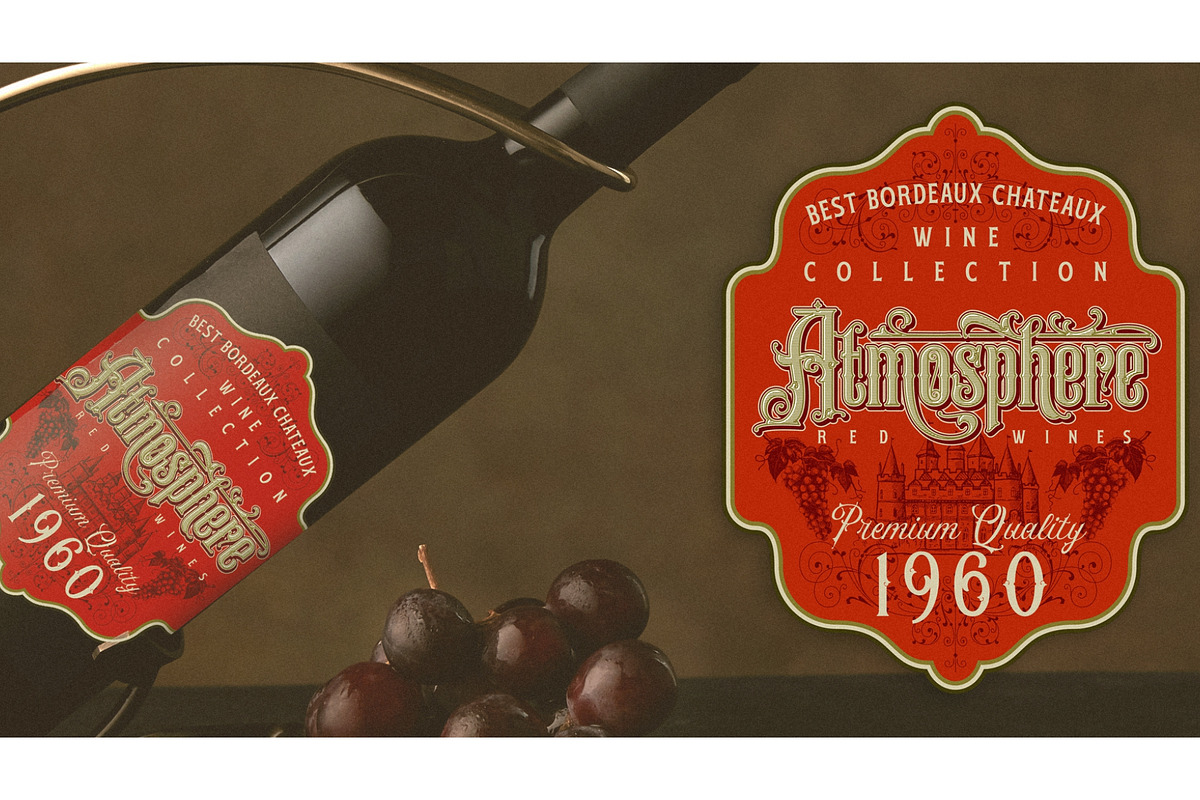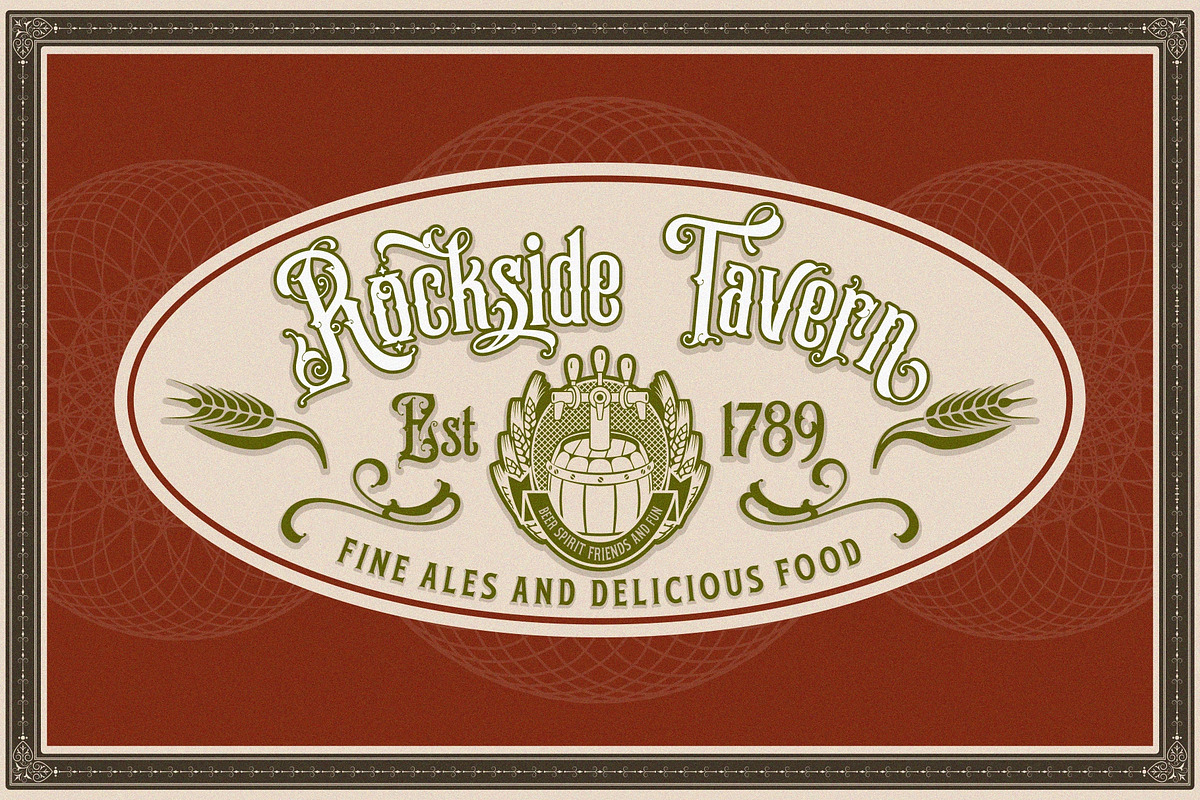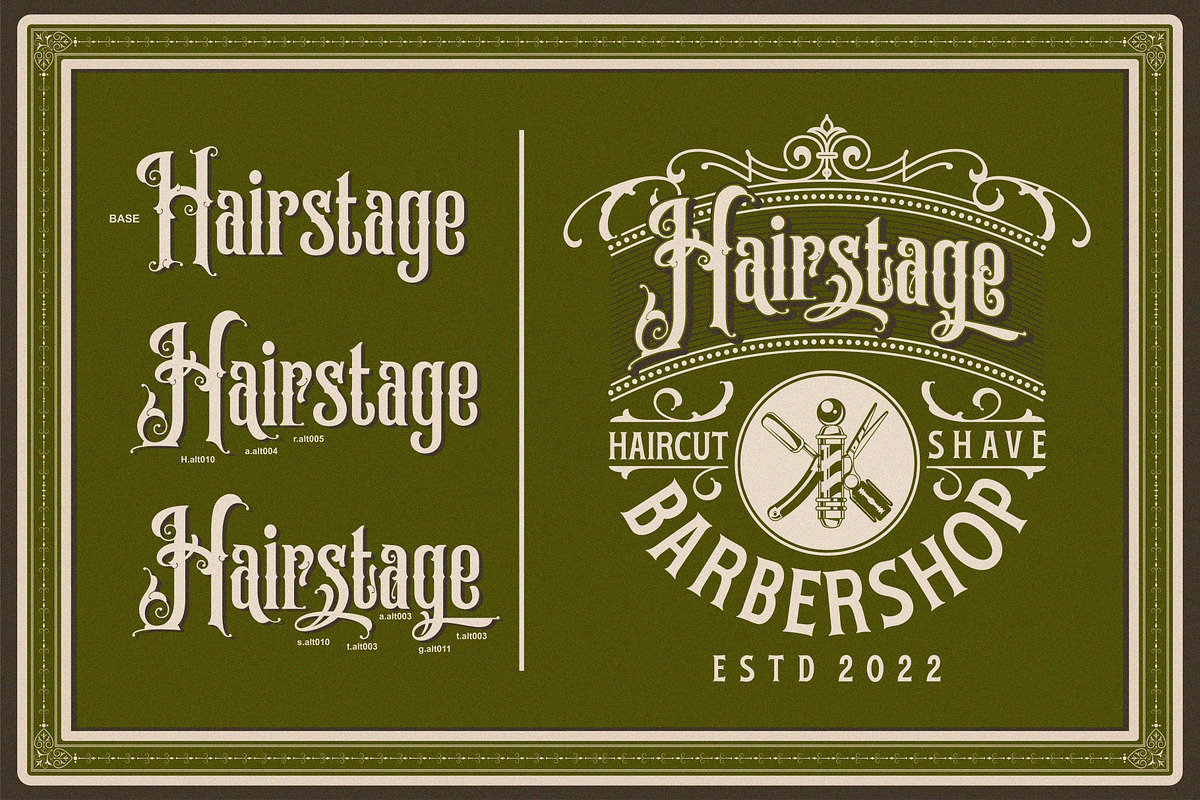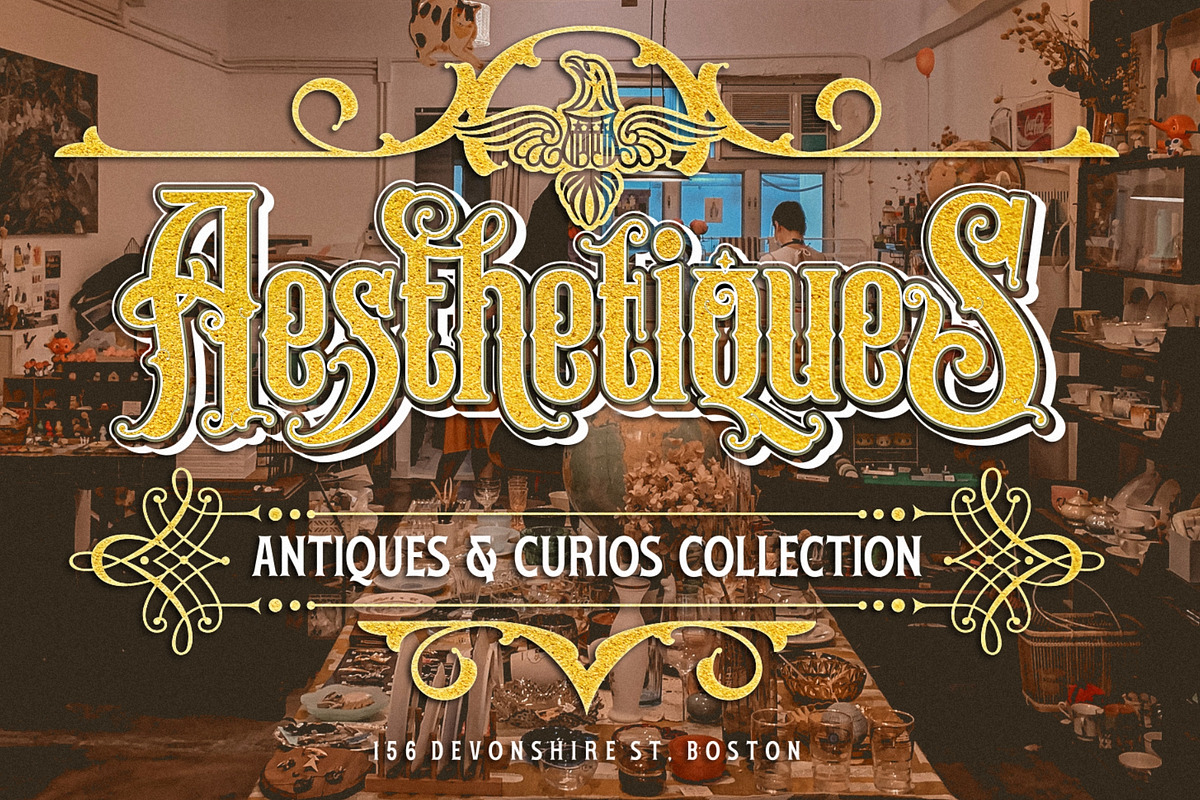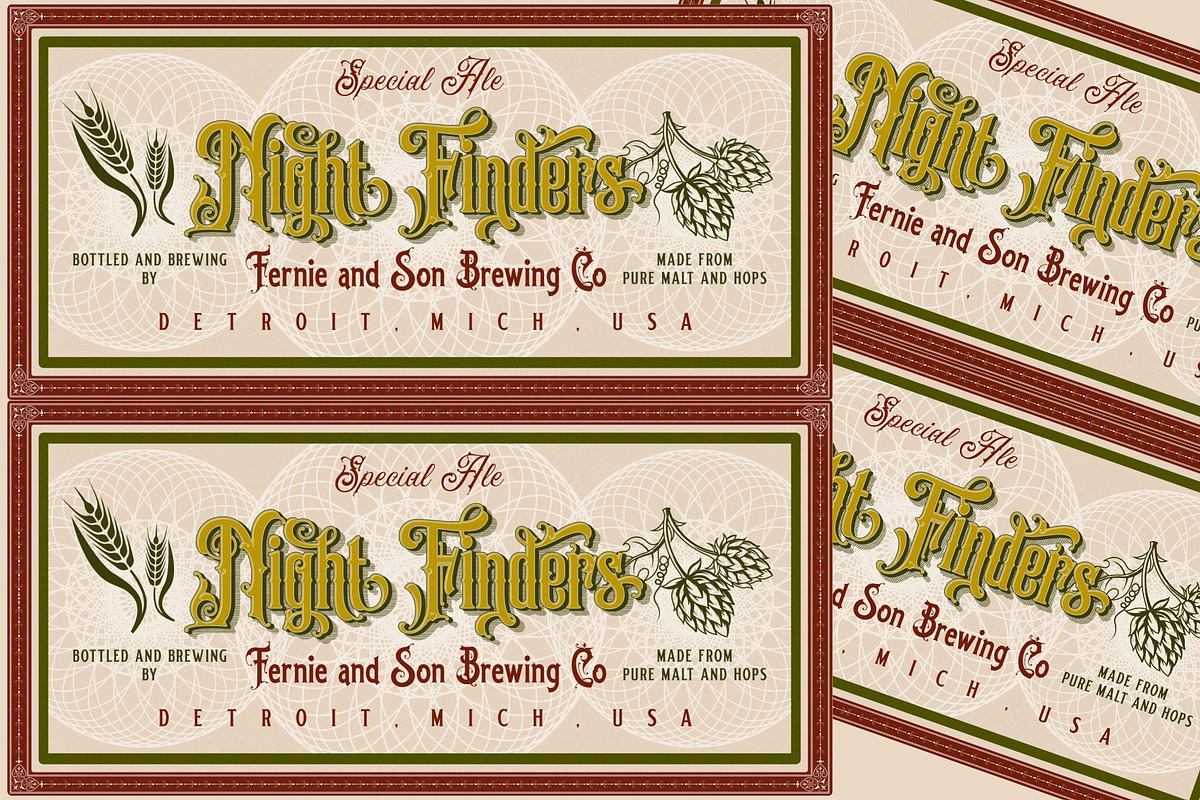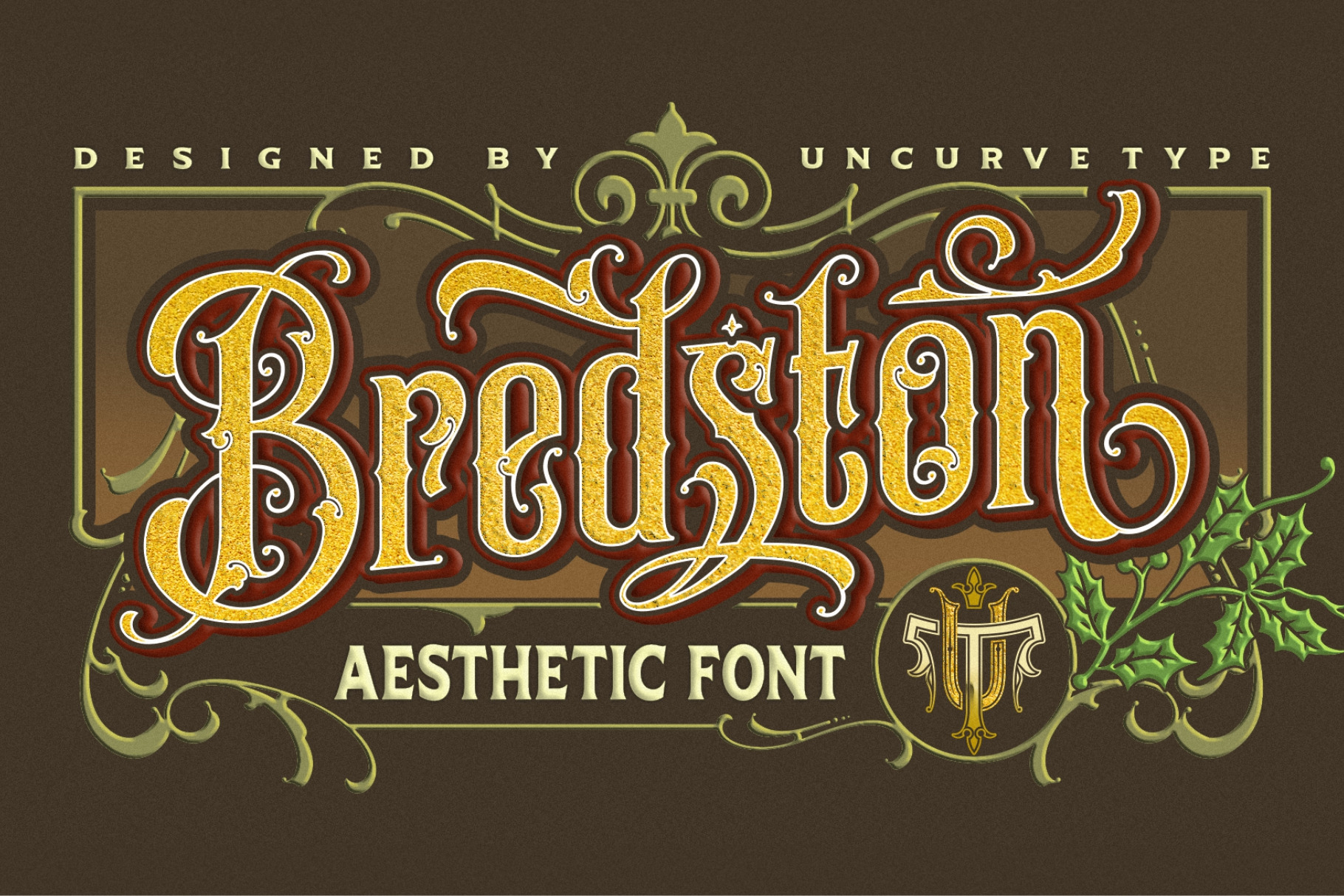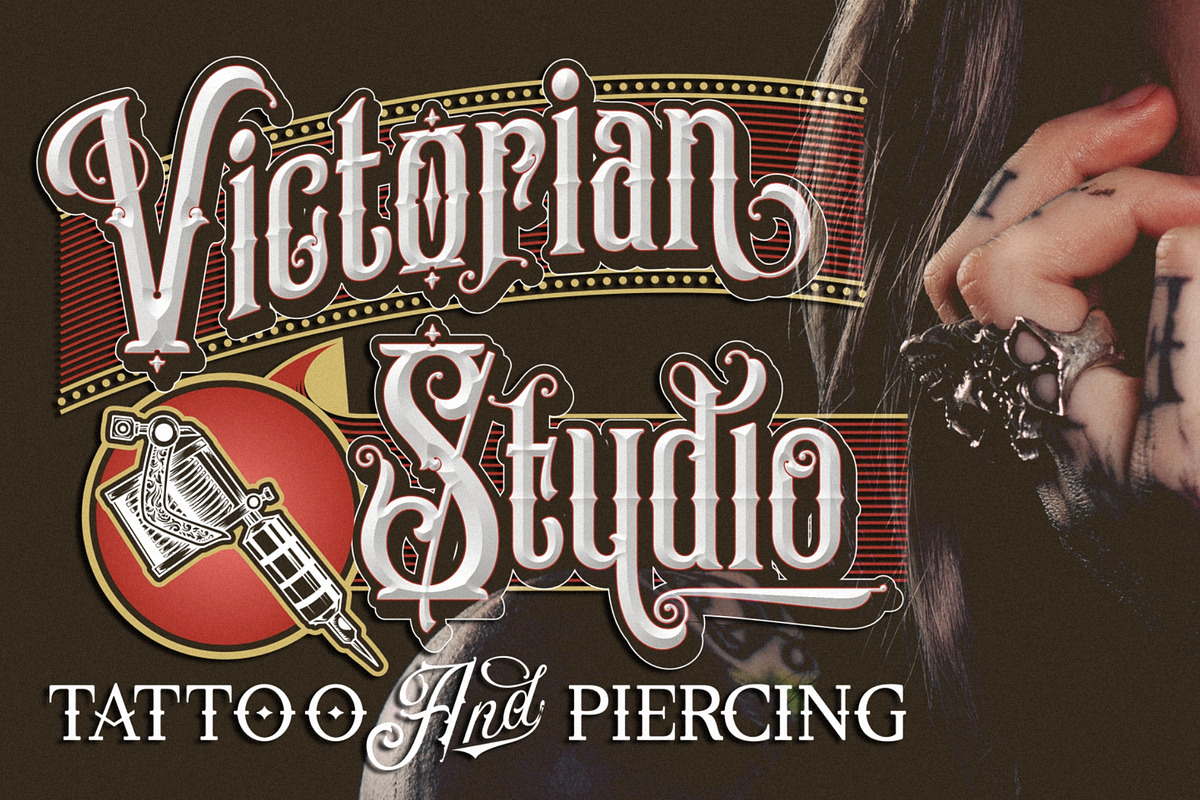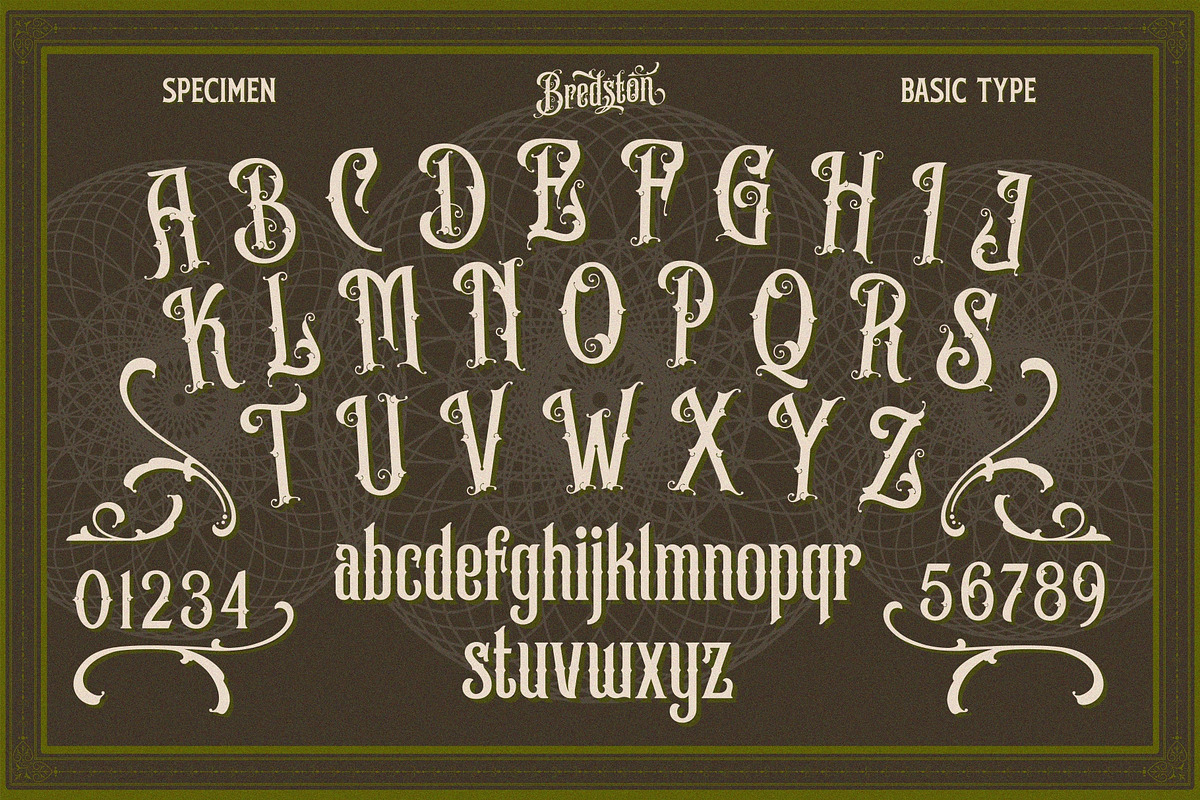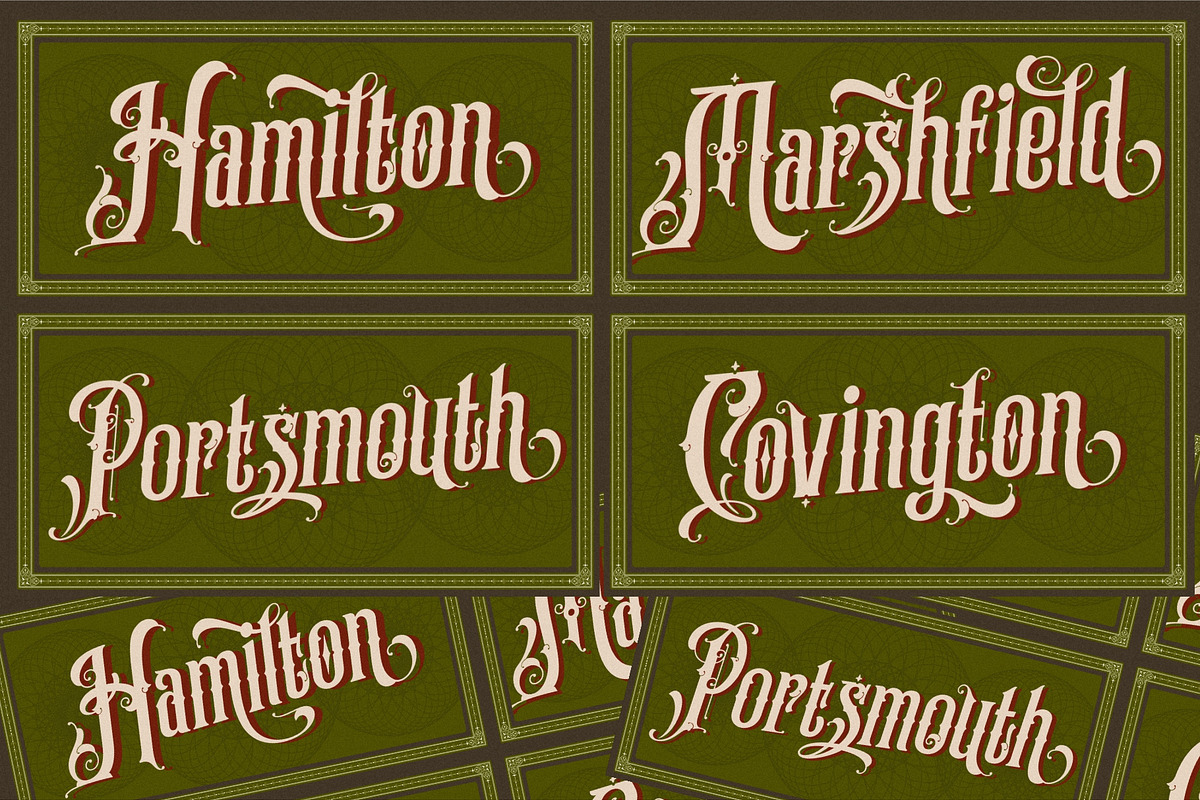
Bredston Vintage Font
Bredston is an aesthetic vintage typography font, inspired from the past, elegant signage, gold leaf , sign painting and old label product. Bredston comes with tons of alternates characters to make more eye cacthy . It is suitable for authentic logos, headings, sign painting, posters, letterhead, branding, magazines, album covers, book covers, movies, apparel design, flyers, greeting cards, product packaging, and more. You just combine with the another font like script , serif or san serif font and adding some effect finally BOOM..!! you get a great design for your project.